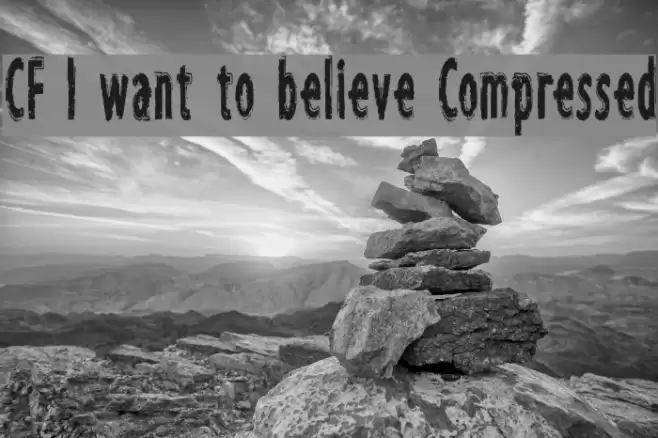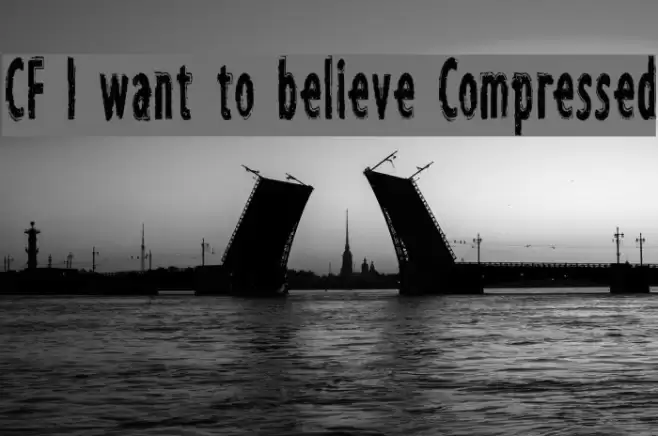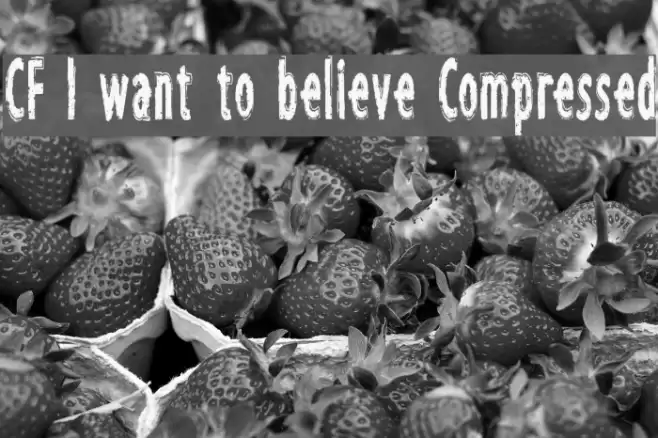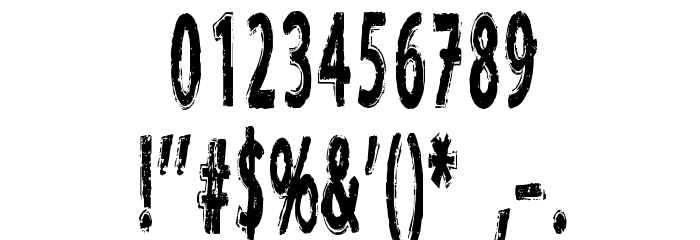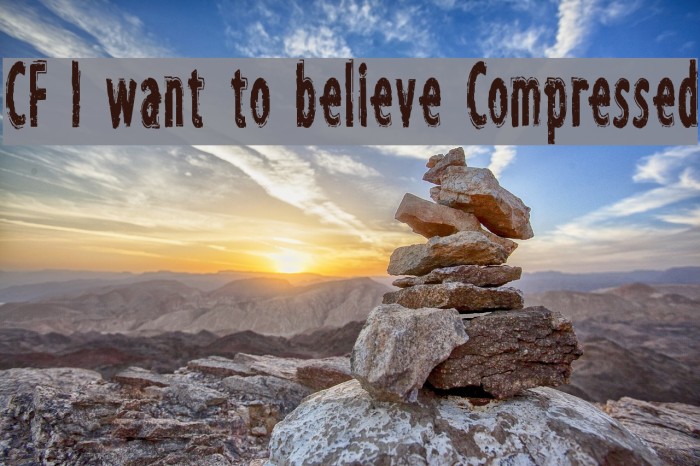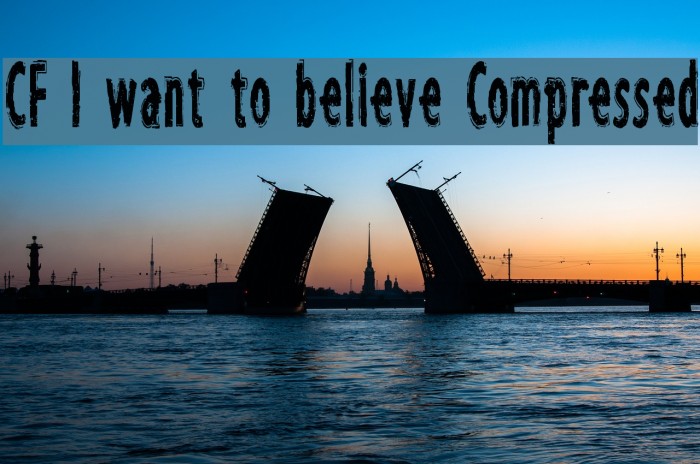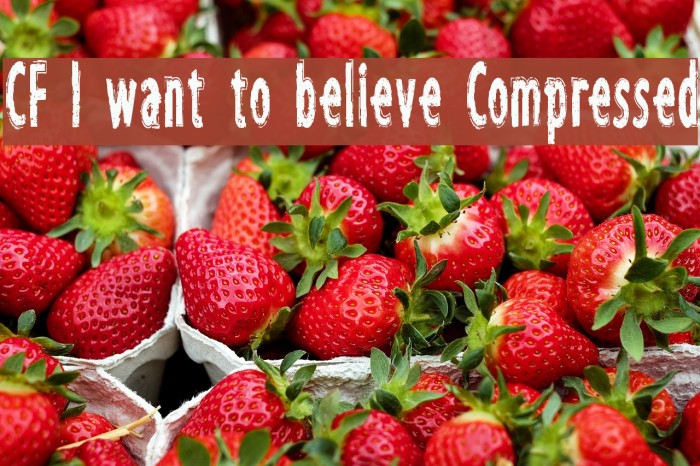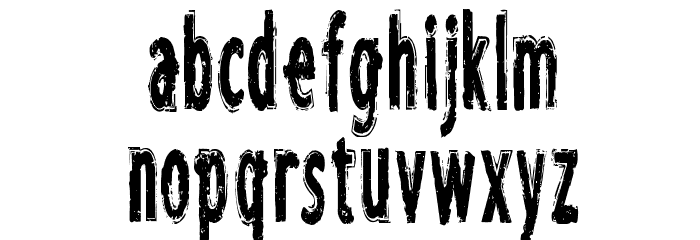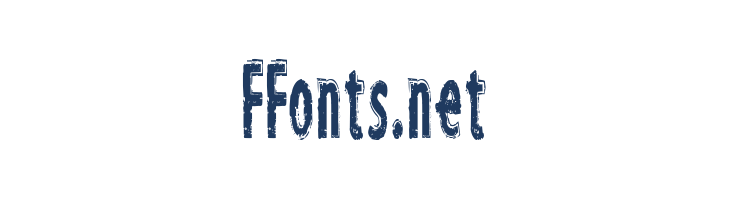
CF I want to believe Compressed Font
CF I want to believe Compressed Description
This font features a distressed, grunge style with a textured appearance that gives it a worn and rugged look. The characters are bold and slightly irregular, adding a sense of movement and energy. The uppercase and lowercase letters maintain a consistent style, with rough edges and a hand-crafted feel. Numbers and special characters follow the same aesthetic, ensuring a cohesive look across all text elements. The font's unique texture makes it stand out, ideal for projects that require a bold statement or an edgy, urban vibe.
A bold, distressed font with a grunge texture and rugged appearance from Uncategorized fonts.
- Proposed Projects: Ideal for album covers, posters, streetwear branding, and urban-themed designs.
- Overall Style: Grunge, Urban, Edgy